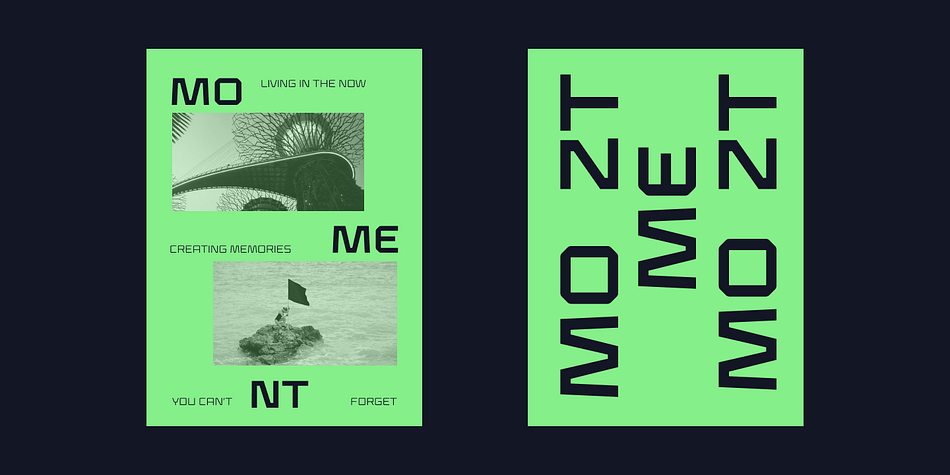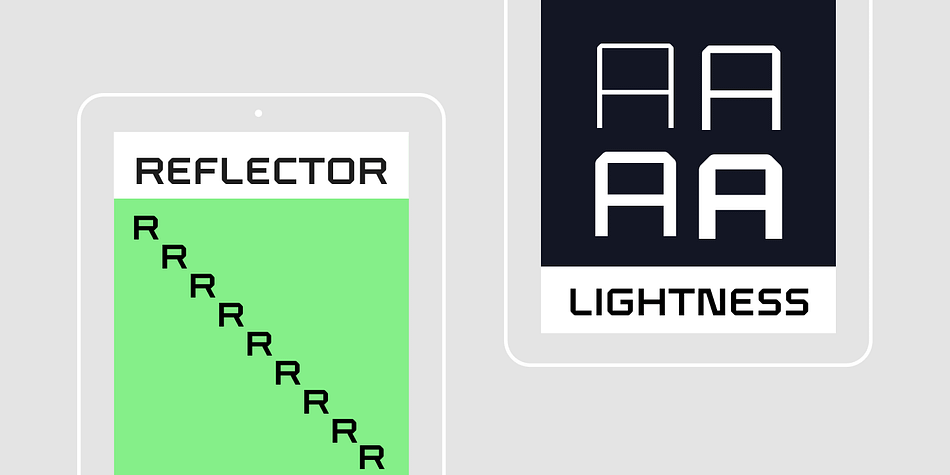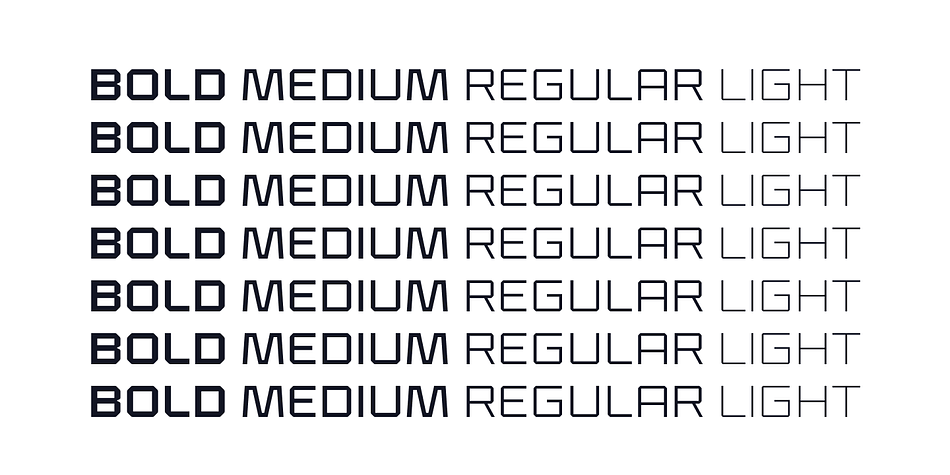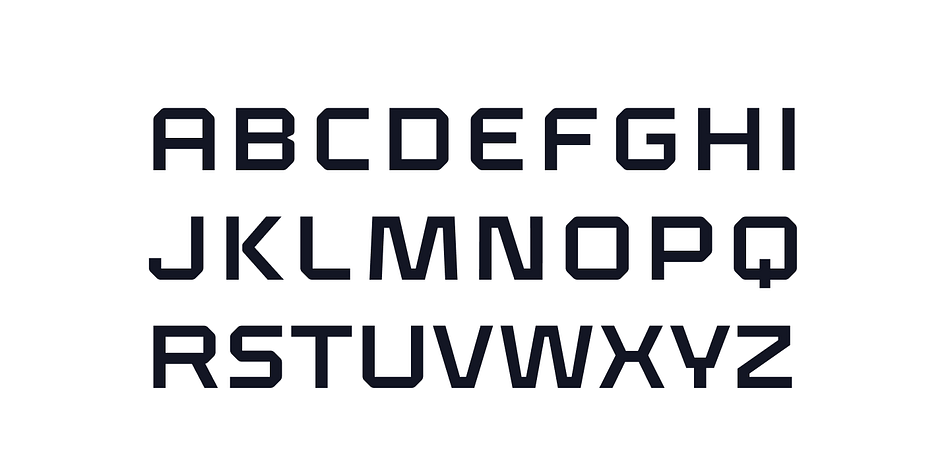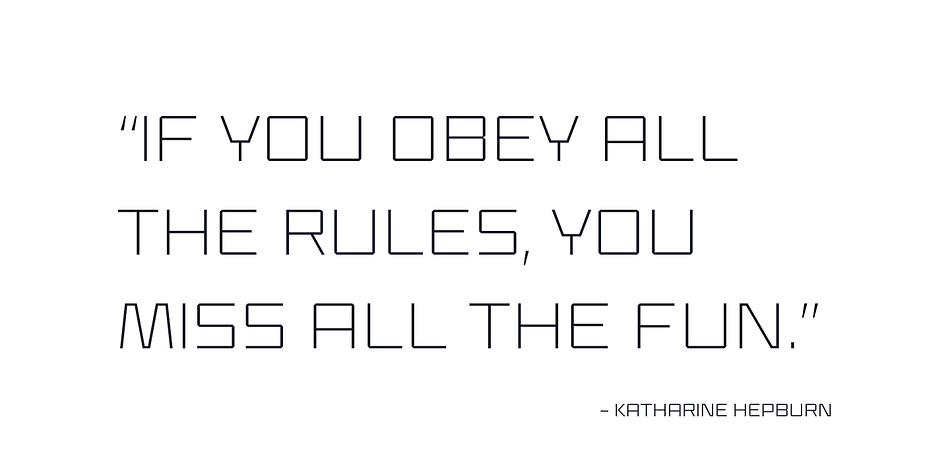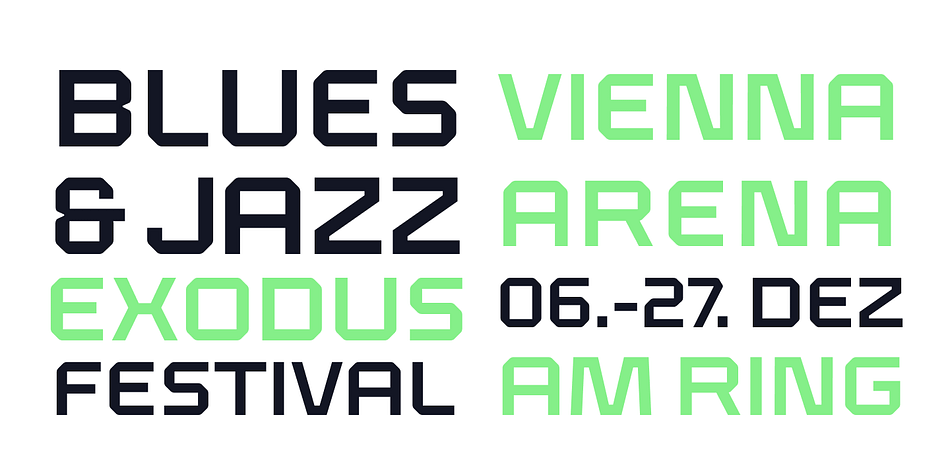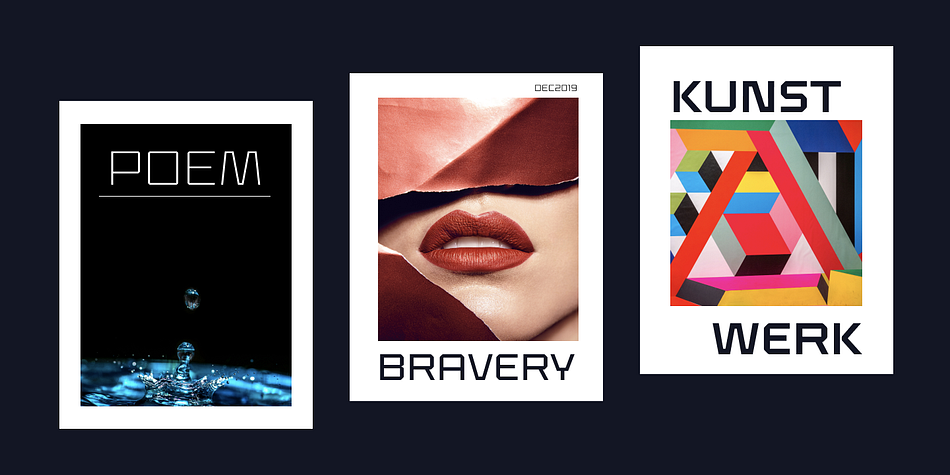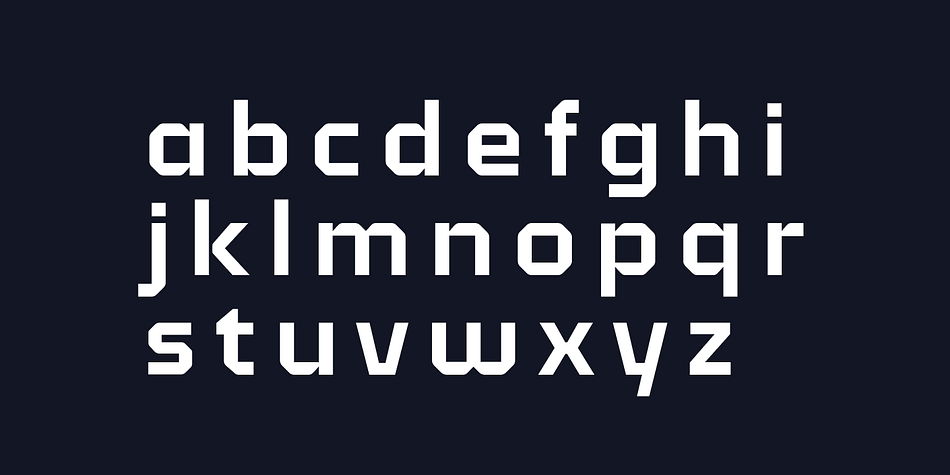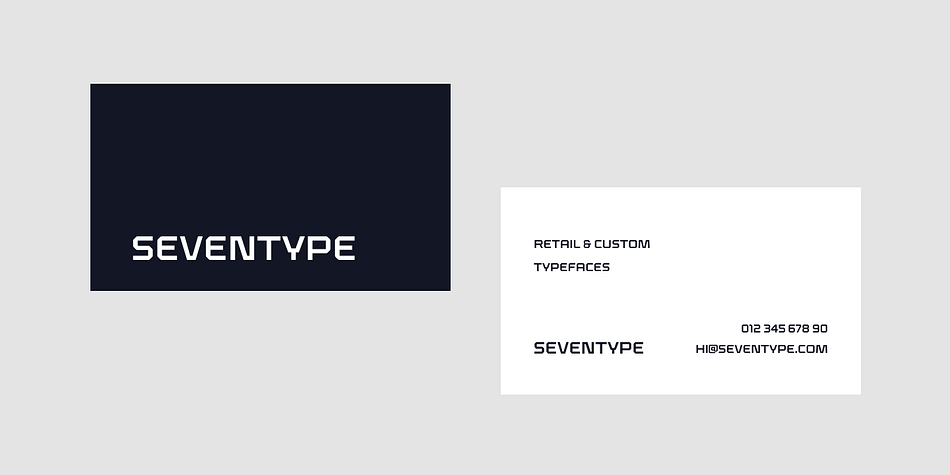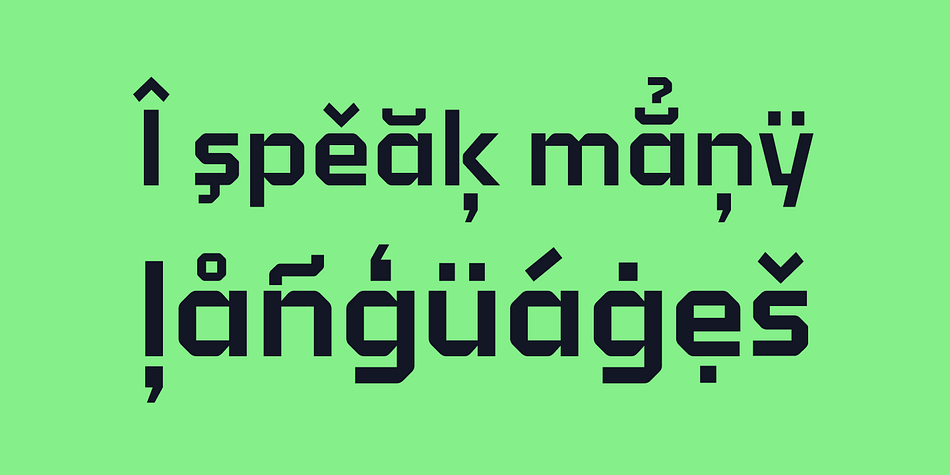
Designed by Vitória Neves, Klapt is a display sans font family. This typeface has four styles and was published by SevenType.
Klapt is a geometric sans serif family that is soft on the outside and sharp on the inside.
This family, of four weights, includes an extended character set supporting most Latin languages even Vietnamese!
Klapt, which can be bold or very elegant, is well suited for designs ranging from branding and corporate identity to editorial design and also web design.
It is great for display purposes especially for headlines, posters, magazines, book covers, logos… you name it!